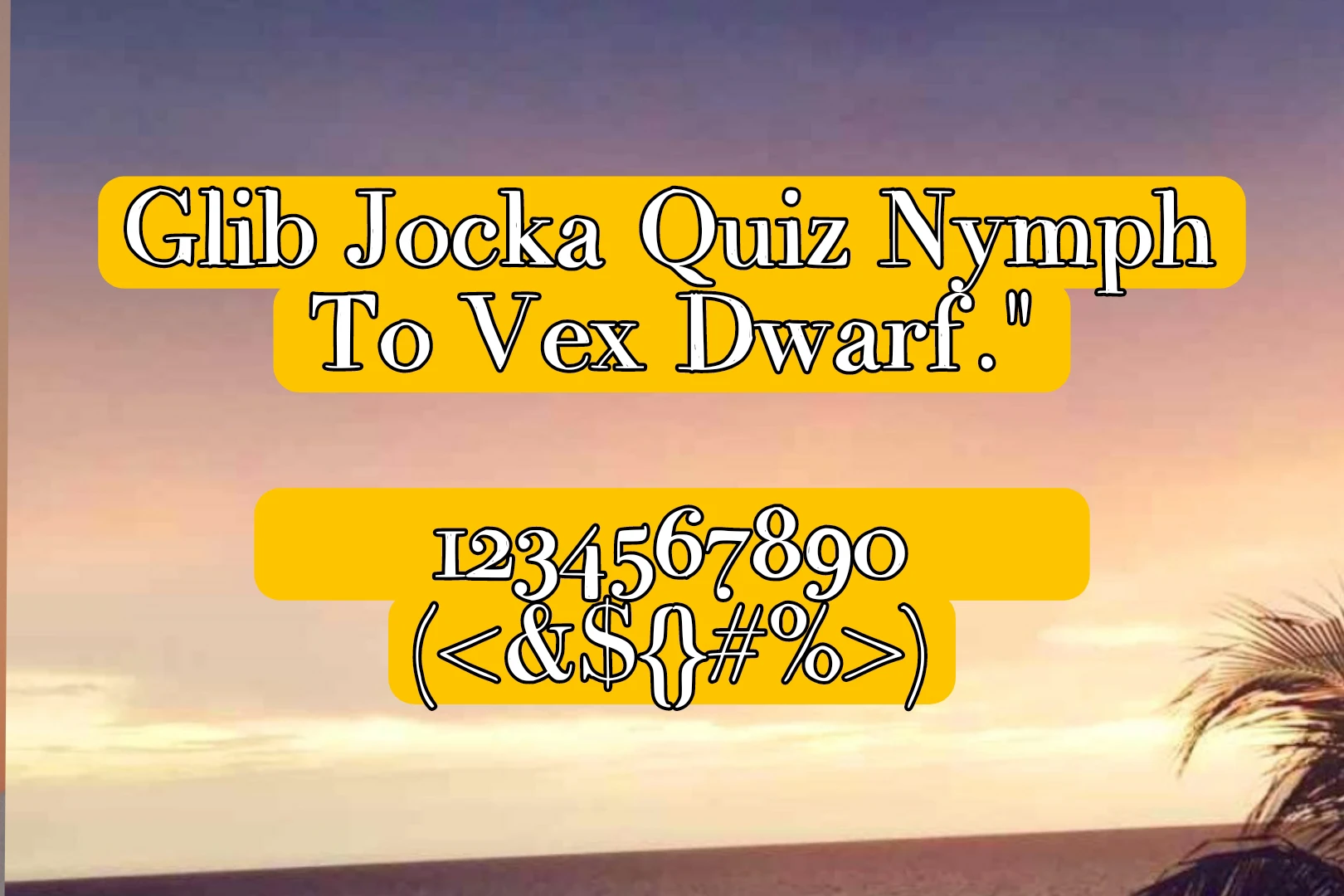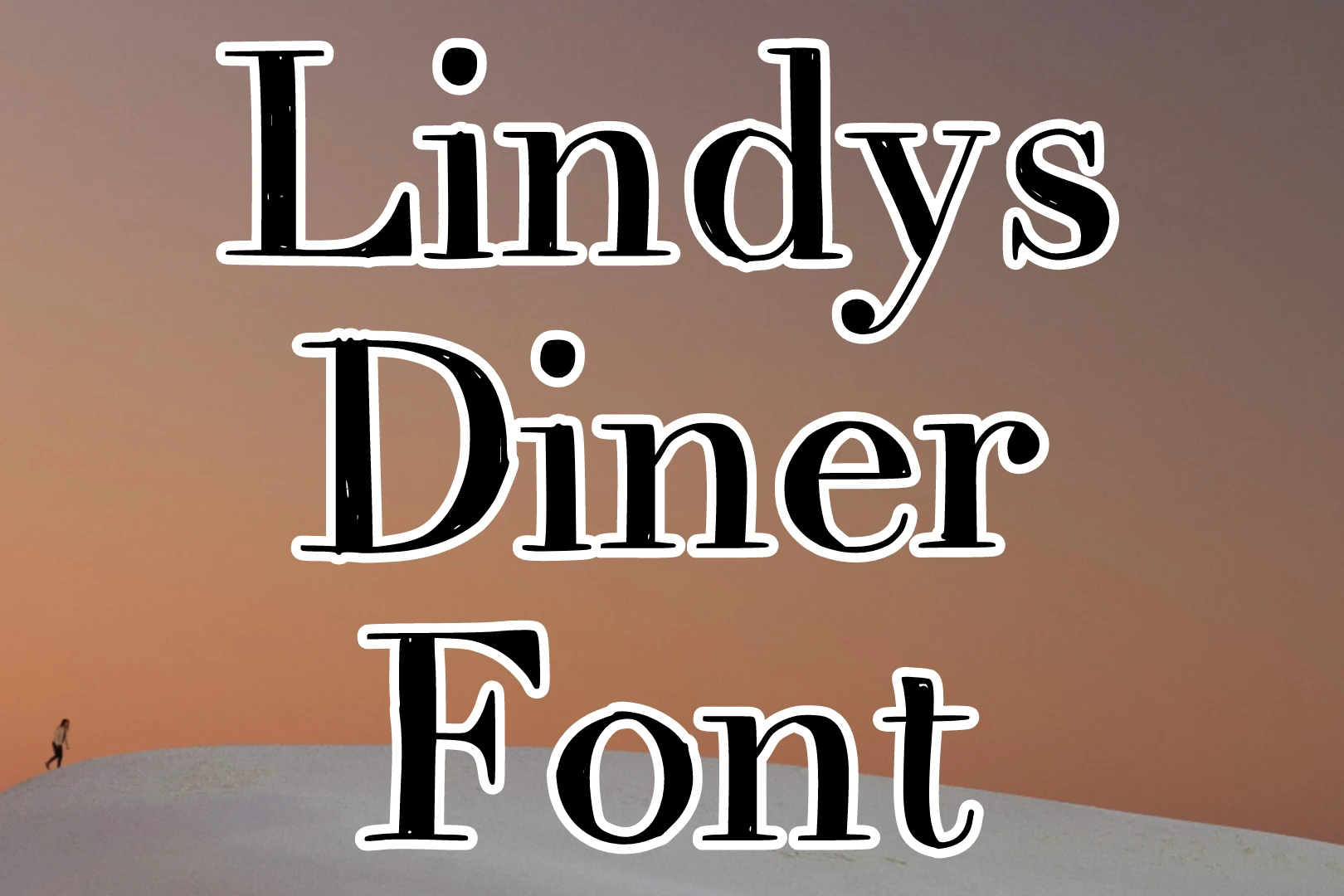
Jake Luedecke, a famous designer, made Lindys Diner Font. It’s a cool style of writing that belongs to the fancy texture family. You can get it in two formats, OTF and TTF. If you want to make your plain writing look stylish and cool, there’s an online tool you can use.
This font is excellent for creating logos, posters, banners, and social media posts. It looks neat and attractive. You can even combine it with other fonts like The Chiquitas Font for really cool projects. It works well with software like Adobe Photoshop, Canvas, Illustrator, and more. And the best part is, you can download it for free!
This beautiful texture comes with different kinds of letters, like big ones (uppercase), small ones (lowercase), numbers, symbols, and some unique structures. It can also have various styles, like bold, italic, and regular, giving you lots of choices for how your text looks, click the download button, and once it’s on your computer, use software like WinRAR to open it. This Font works on Android, MAC, and other operating systems. So, you can easily use it for all your creative projects.
Usage of lindys Diner Font
Imagine you have this super cool font it’s like having a magic pen for your computer! You can use it to make awesome things like really standout logos that people remember. You know those big letters at the start of names? This Font has those, and they look super bold and cool.
Also, when you’re making signs or posters for parties or events, it makes your words pop and grab attention. It’s like putting on your favorite outfit but for words! And guess what? If you’re into social media and want your posts to look extra cool, This texture is your go-to buddy. It’s like adding special effects to your words, making them look trendy and stylish.
The best part is, it has different styles, just like when you pick different outfits to match your mood. You can go bold for a statement or use the regular style for a simple, classy look.
So, whether you’re designing logos, making party posters, or jazzing up your social media, Lindys Diner Font is your creative sidekick. It’s like having a cool tool to make your words and designs stand out in the crowd!
Important FAQs About lindys Diner Font
What type of font is Lindys Diner Font?
This Font is a typeface that falls into the category of decorative or display fonts. It is known for its distinctive and retro style, often associated with the aesthetics of classic diners.
Where can I use the Lindys Diner Font?
You can be used in a variety of design contexts. It is well-suited for creating logos, posters, banners, social media posts, and other creative projects that benefit from a retro or vintage vibe. Its versatility allows it to be applied in both digital and print media.